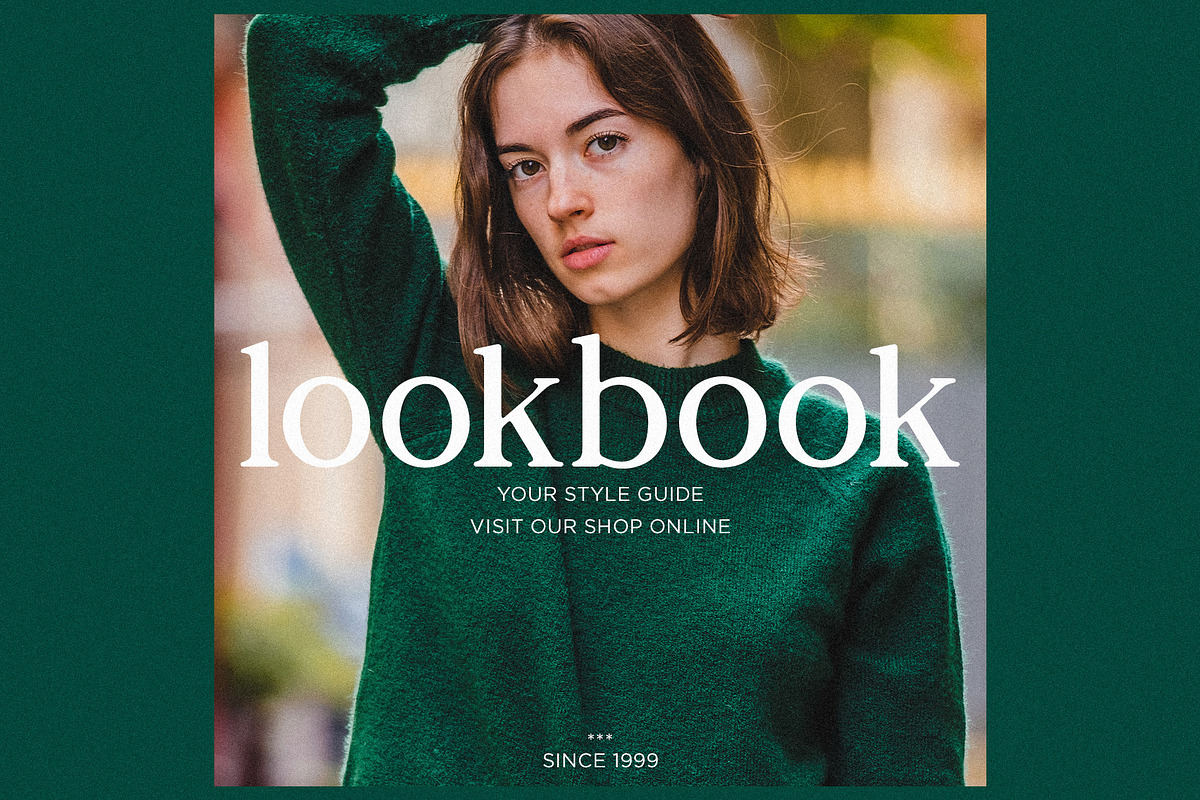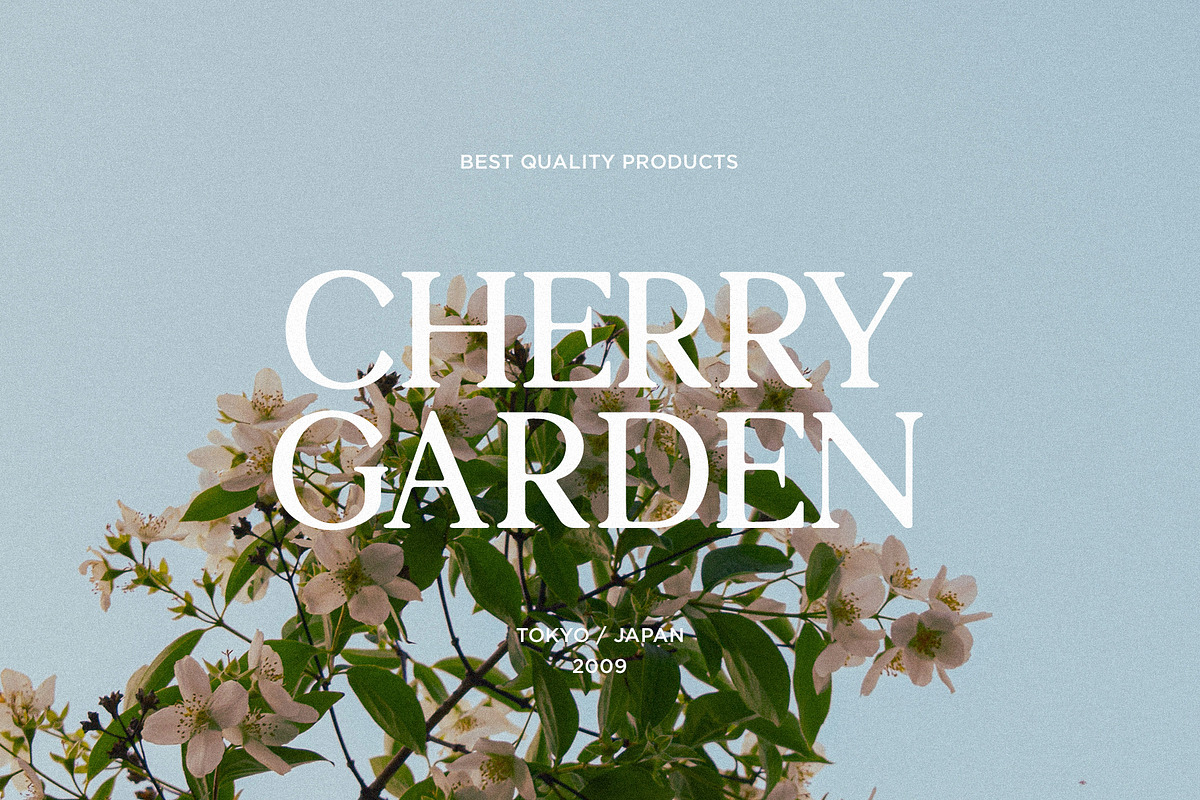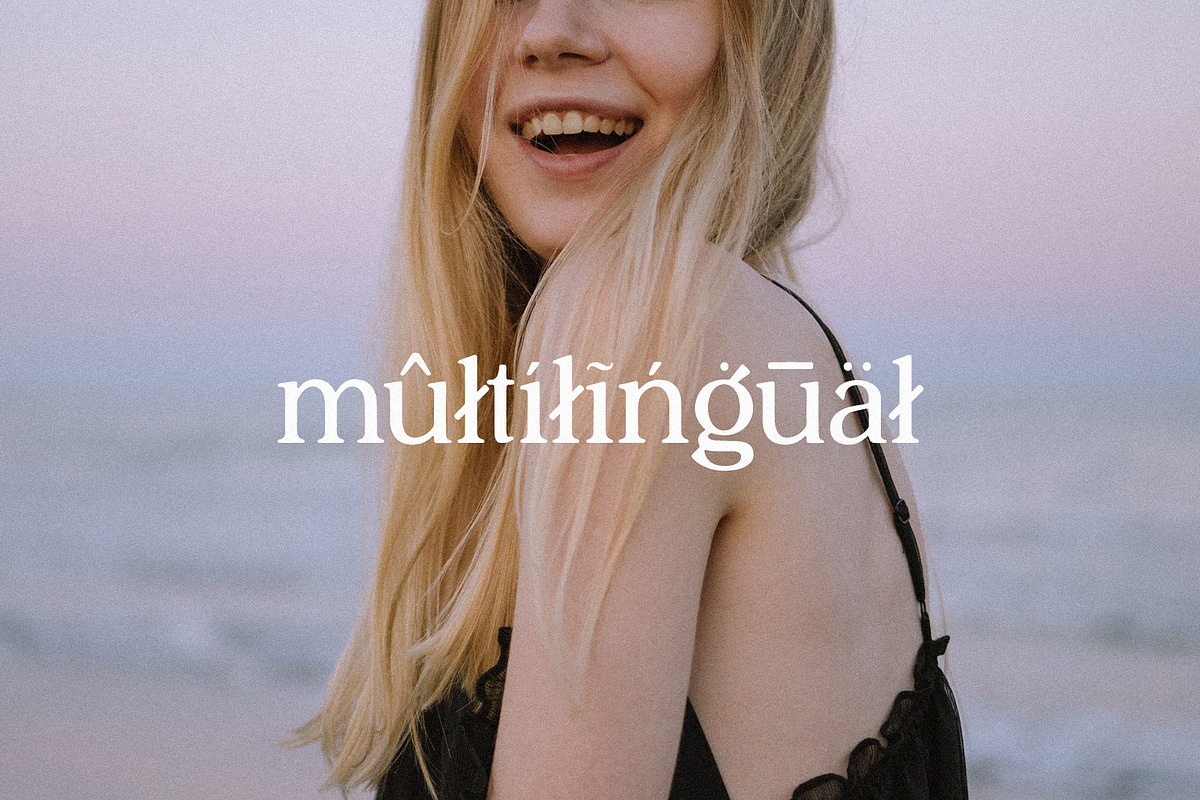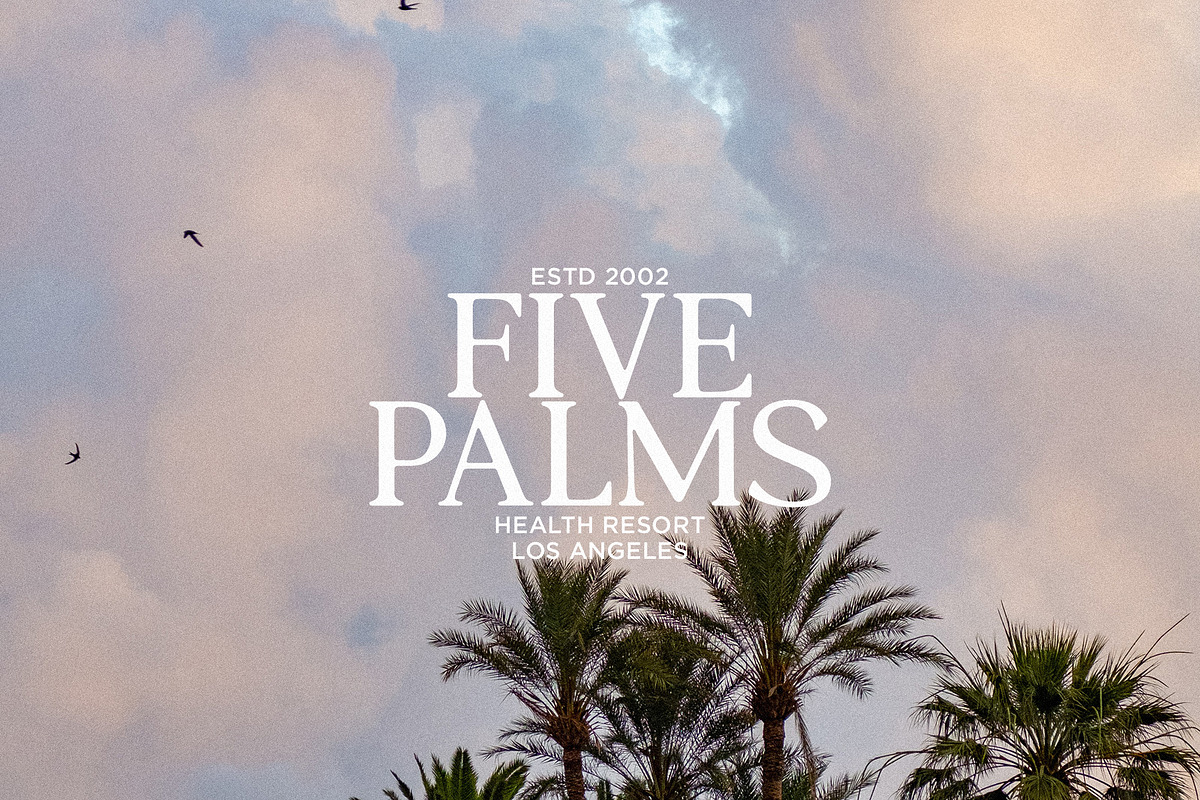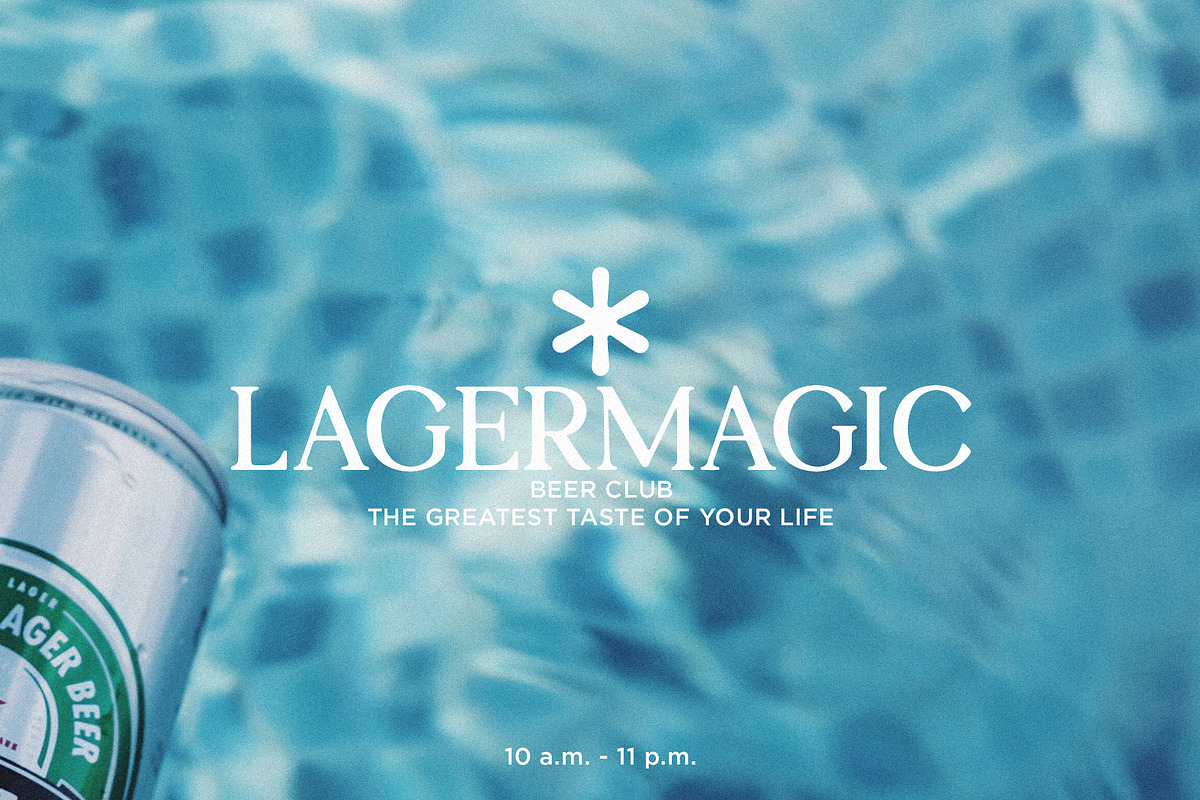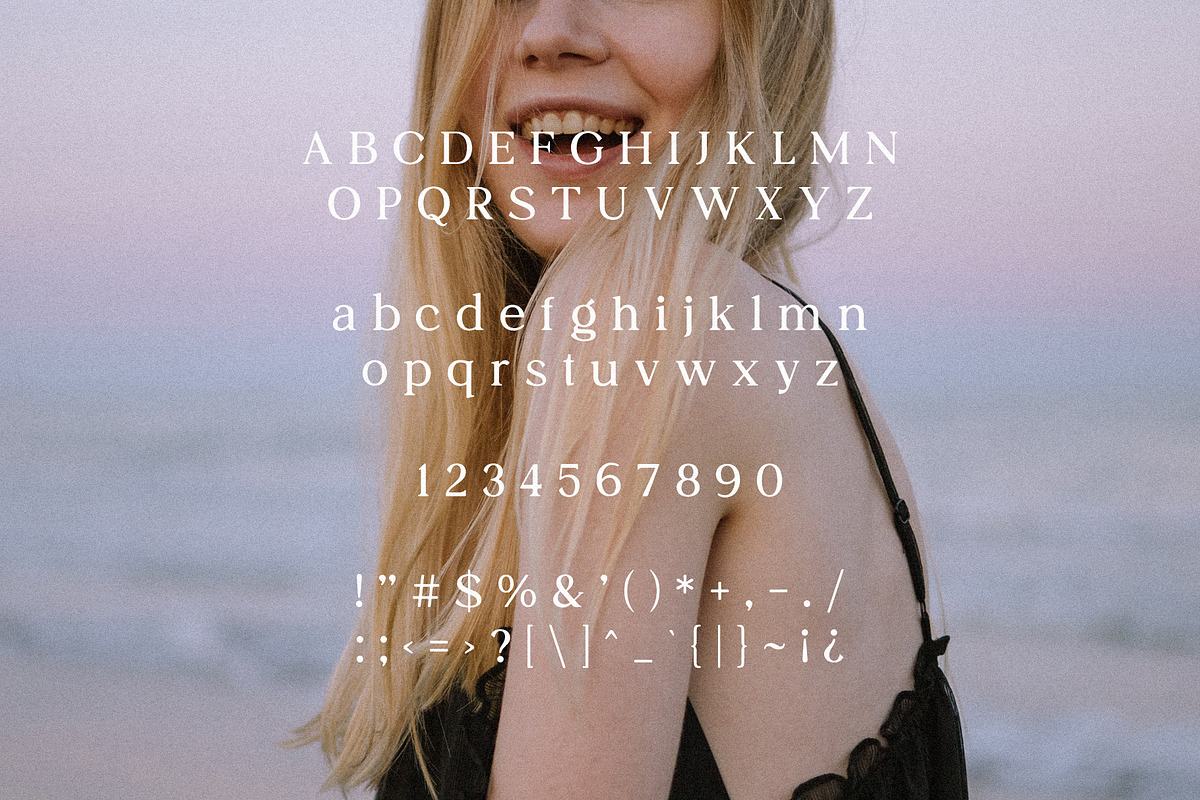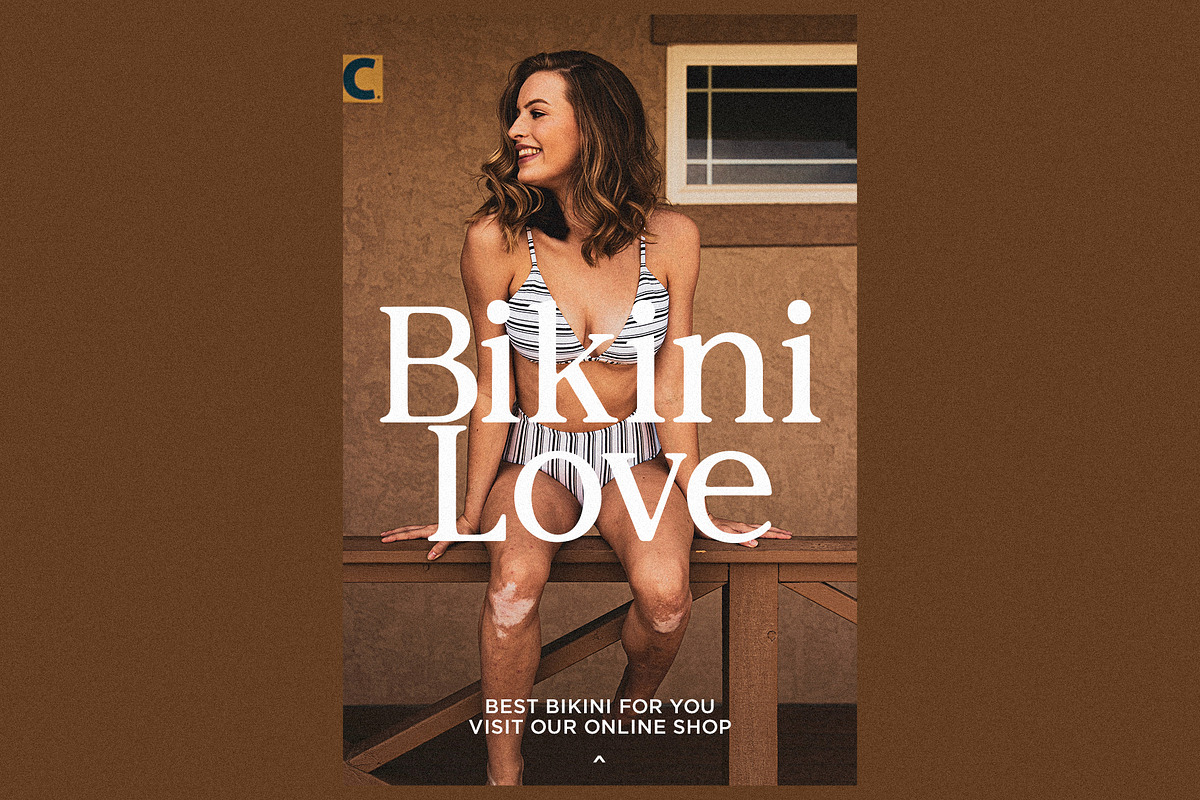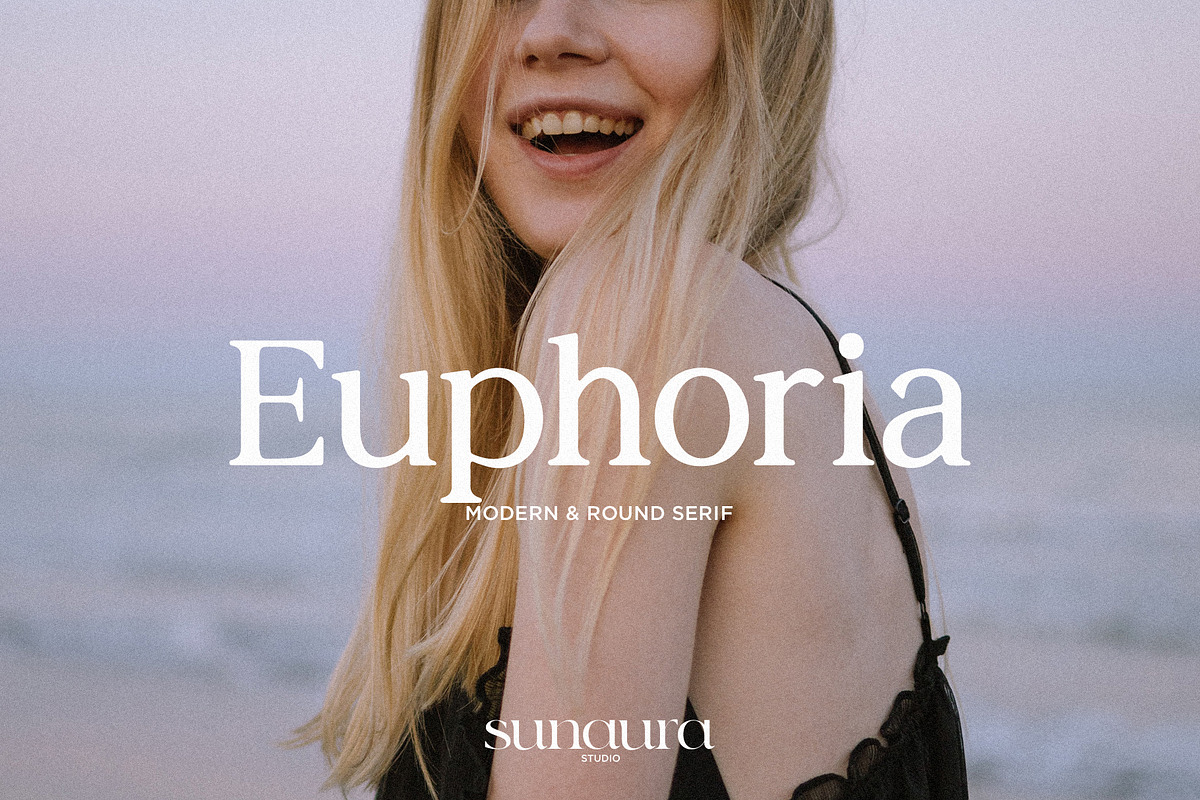
Euphoria - Modern & Round Serif
Euphoria is a modern round serif typeface. This font is perfect for everything, logos, t-shirt design, magazine or website headers, etc. Euphoria features multilingual support, over 250+ glyphs, uppercase & lowercase letters, numbers & symbols.